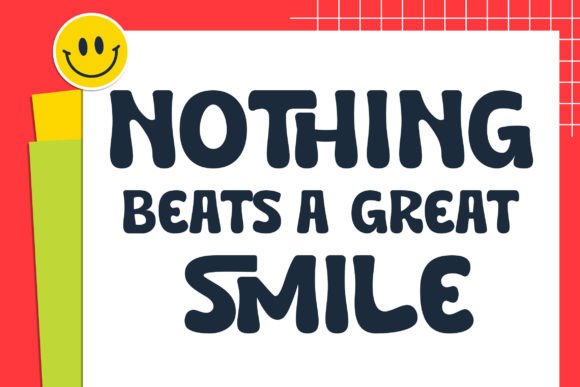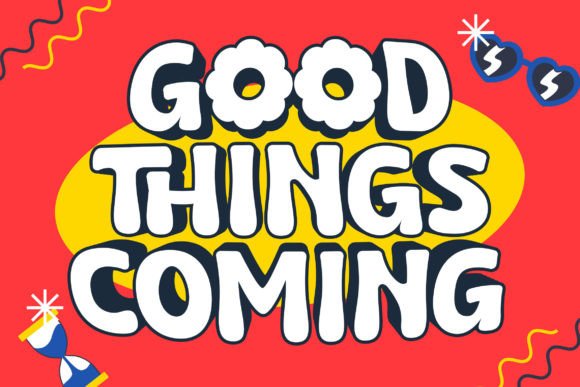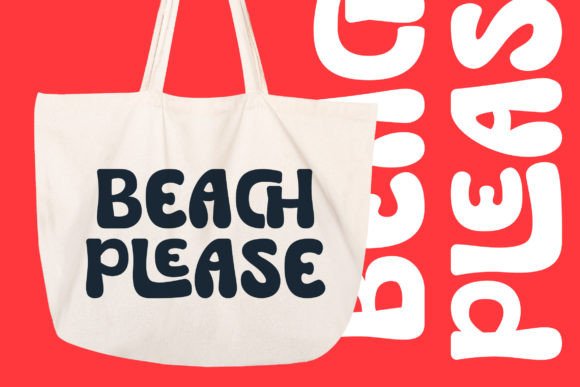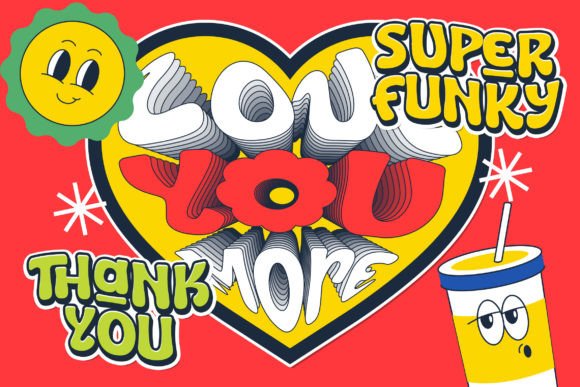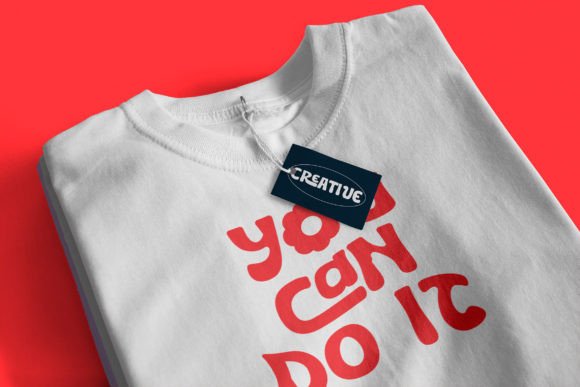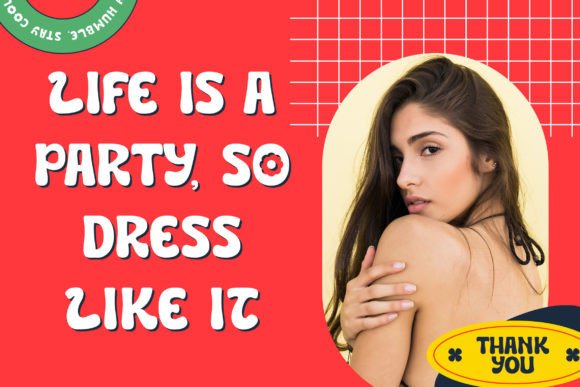
Brave Smile Font: Get Ready to Groove with this Retro Display Font
Are you looking for a font that will transport you back to the funky and fabulous 70s? Look no further than the Brave Smile Font! This groovy display font is perfect for designers and crafters who want to add a touch of retro cool to their projects. With its bold lines, funky curves, and nostalgic vibe, Brave Smile is sure to bring a smile to your face and a twinkle to your designs.
The Perfect Font for Retro-Inspired Projects
Brave Smile is a display font that is specifically designed to evoke the spirit of the 1970s. Its bold and playful lines make it perfect for use in posters, album covers, branding, and any other project where you want to make a statement. Whether you’re a designer looking to create a retro-inspired campaign or a crafter looking to add a touch of vintage flair to your DIY project, Brave Smile is the perfect choice.
PUA Encoded for Easy Access to Glyphs and Swashes
One of the best things about Brave Smile is that it’s PUA (Private Use Area) encoded, which means that you can access all of the delightful glyphs and swashes effortlessly. This makes it easy to add a touch of personality to your designs and to create unique and eye-catching text. With Brave Smile, you can easily add flair to your text and make it stand out from the crowd.
Key Features of Brave Smile Font
- Groovy and retro design: Brave Smile is a display font that is inspired by the funky and fabulous 1970s.
- Bold lines and funky curves: The font features bold lines and funky curves that give it a playful and nostalgic vibe.
- PUA encoded: Brave Smile is PUA encoded, making it easy to access all of the glyphs and swashes.
- Perfect for display text: Brave Smile is designed specifically for use in display text, making it perfect for posters, album covers, and branding.
Why Choose Brave Smile Font?
So why choose Brave Smile font for your next project? Here are just a few reasons:
- Instant retro vibe: Brave Smile instantly adds a retro vibe to your designs, making it perfect for projects that require a nostalgic feel.
- High-quality design: Brave Smile is a high-quality font that is designed to look great in any context.
- Funky and playful: The font has a funky and playful vibe that’s sure to add a touch of personality to your designs.
- Use it for display text: Brave Smile is designed specifically for use in display text, so try using it for titles, headings, and other prominent text.
- Experiment with glyphs and swashes: With Brave Smile’s PUA encoding, you can easily access all of the glyphs and swashes to add a touch of personality to your text.